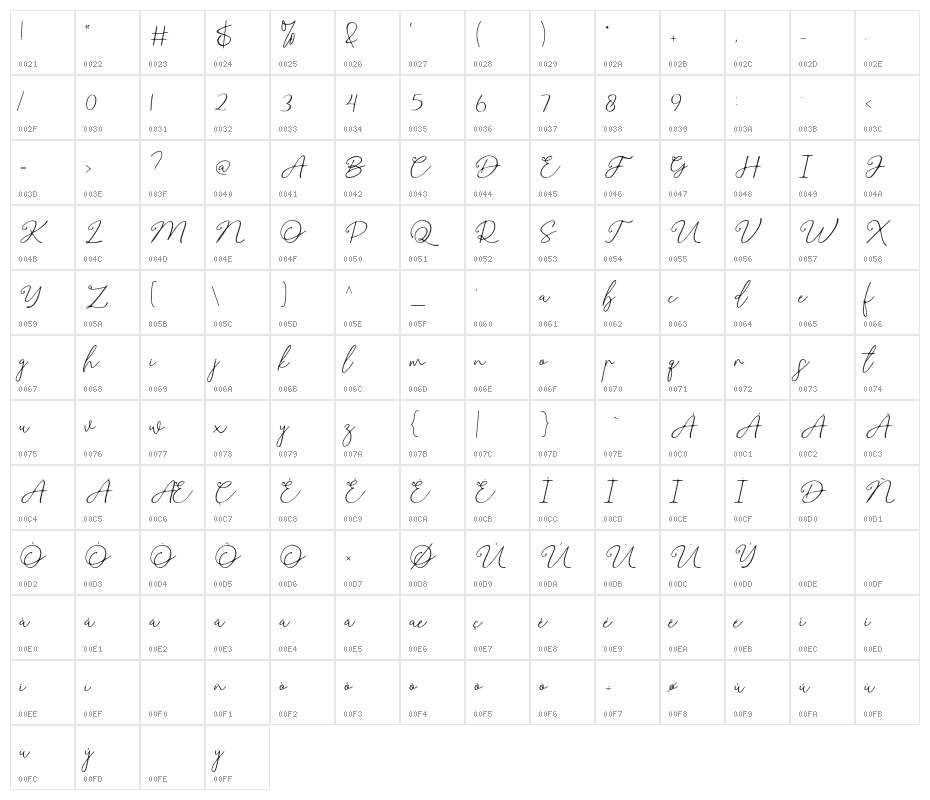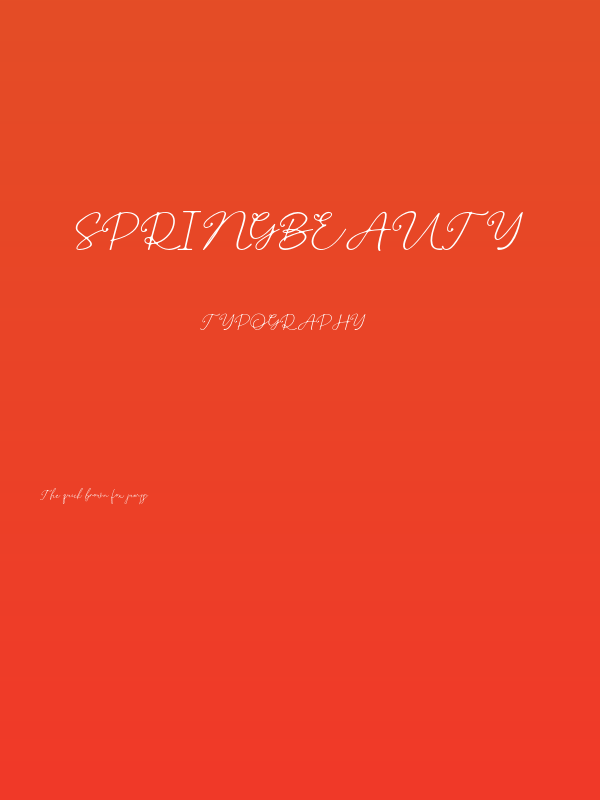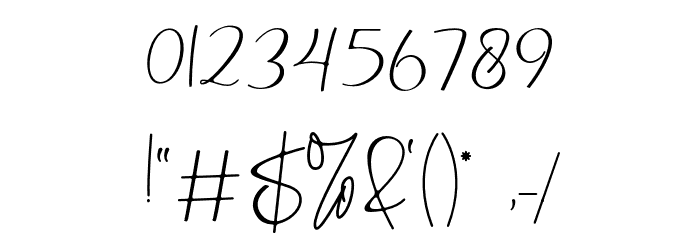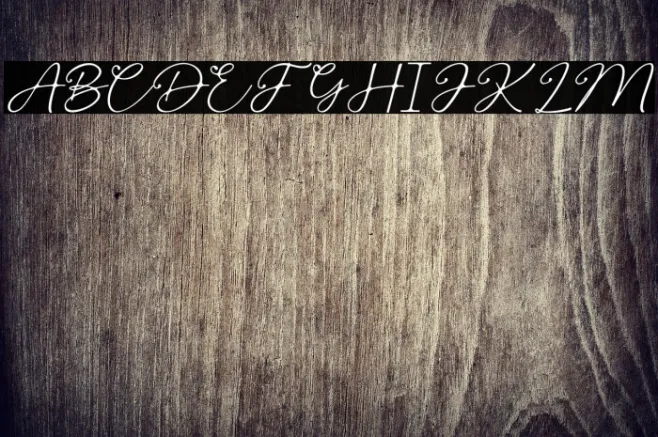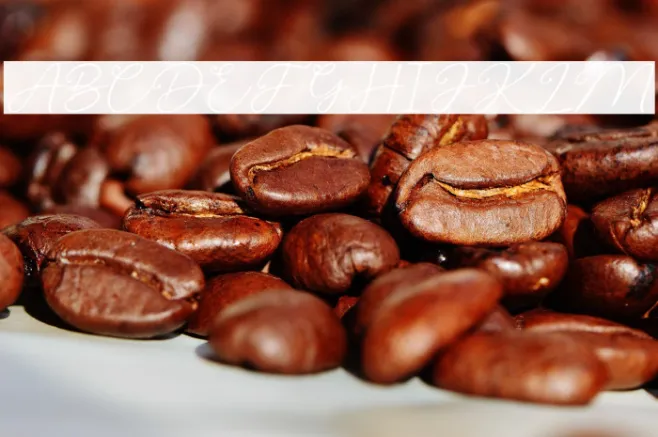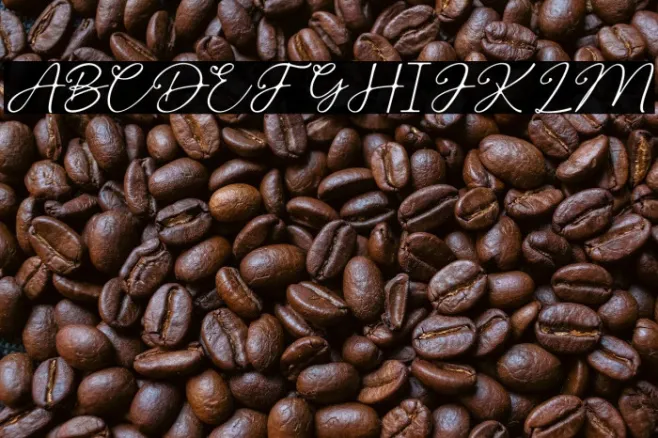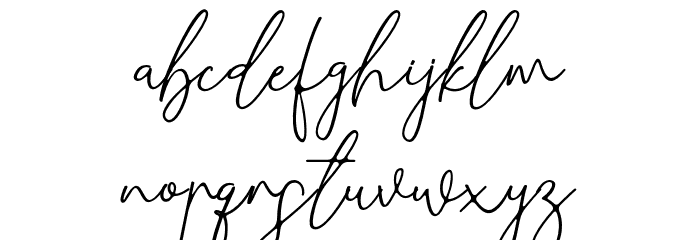
SpringBeauty Font
SpringBeauty Description
This elegant script font features a flowing, cursive style with smooth, rounded edges and a consistent stroke width. The uppercase letters are gracefully connected, while the lowercase letters exhibit a charming looped design, adding a touch of sophistication. The numerals maintain the same fluidity, ensuring a cohesive look throughout. Special characters are thoughtfully crafted to match the overall aesthetic, making this font ideal for projects that require a personal, handwritten touch.